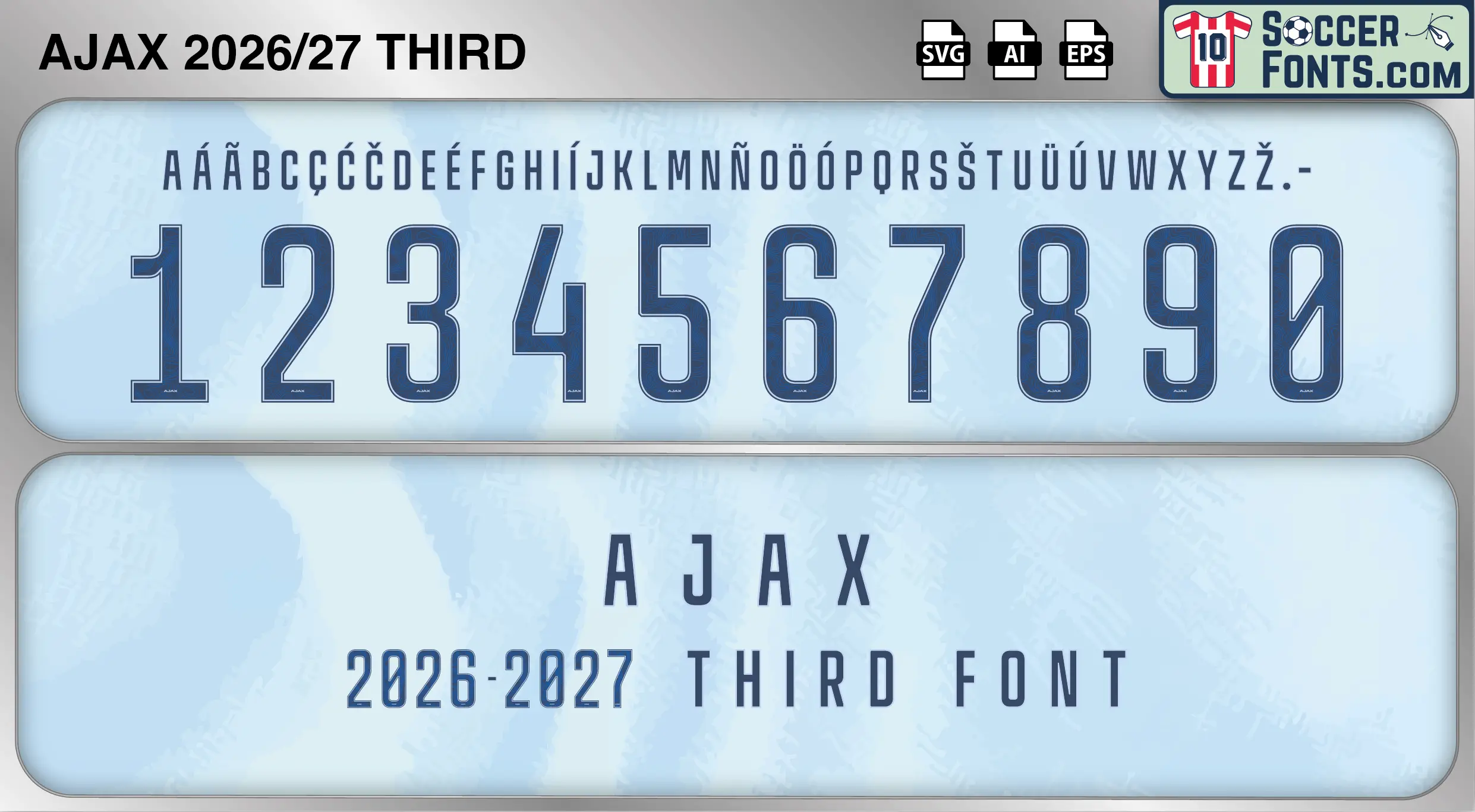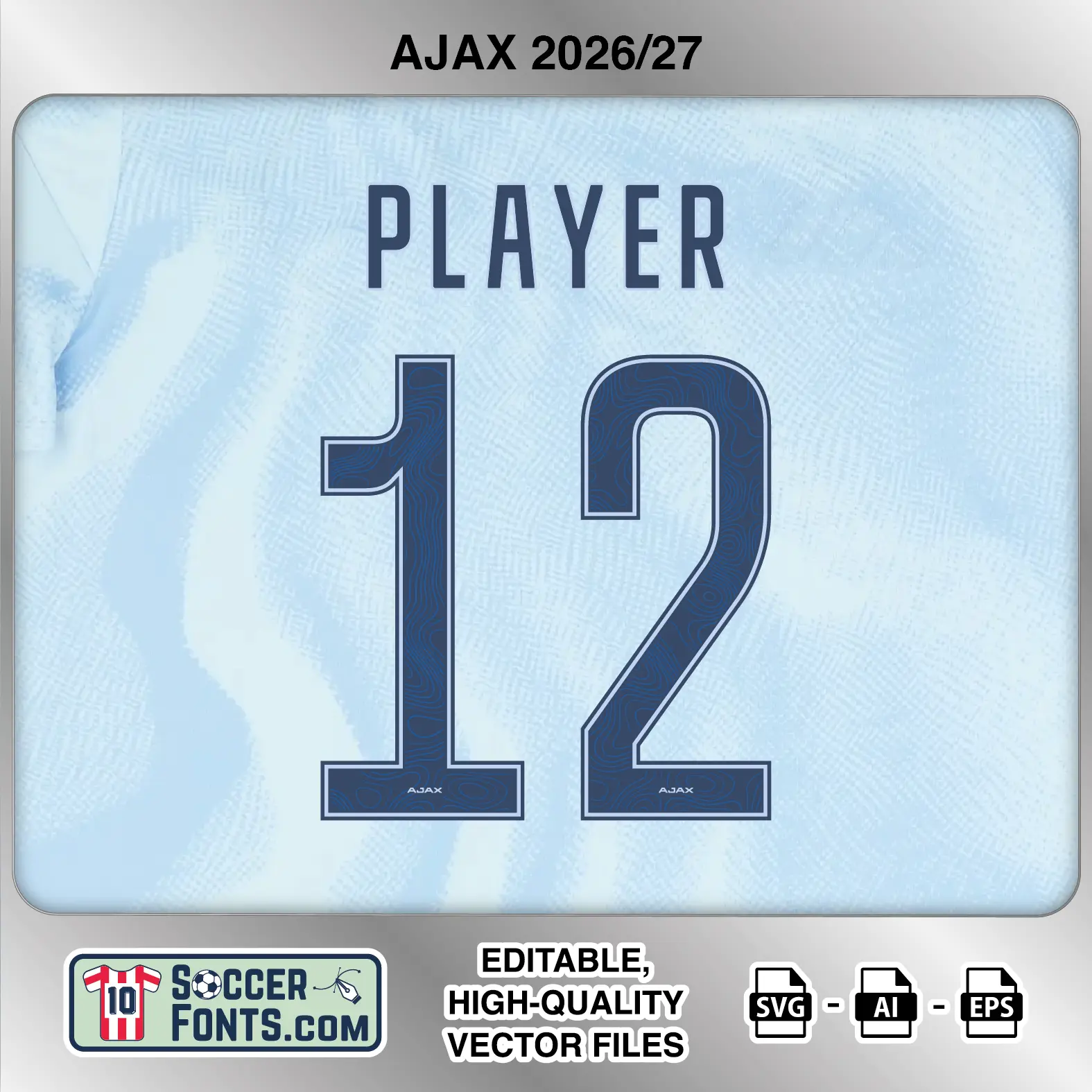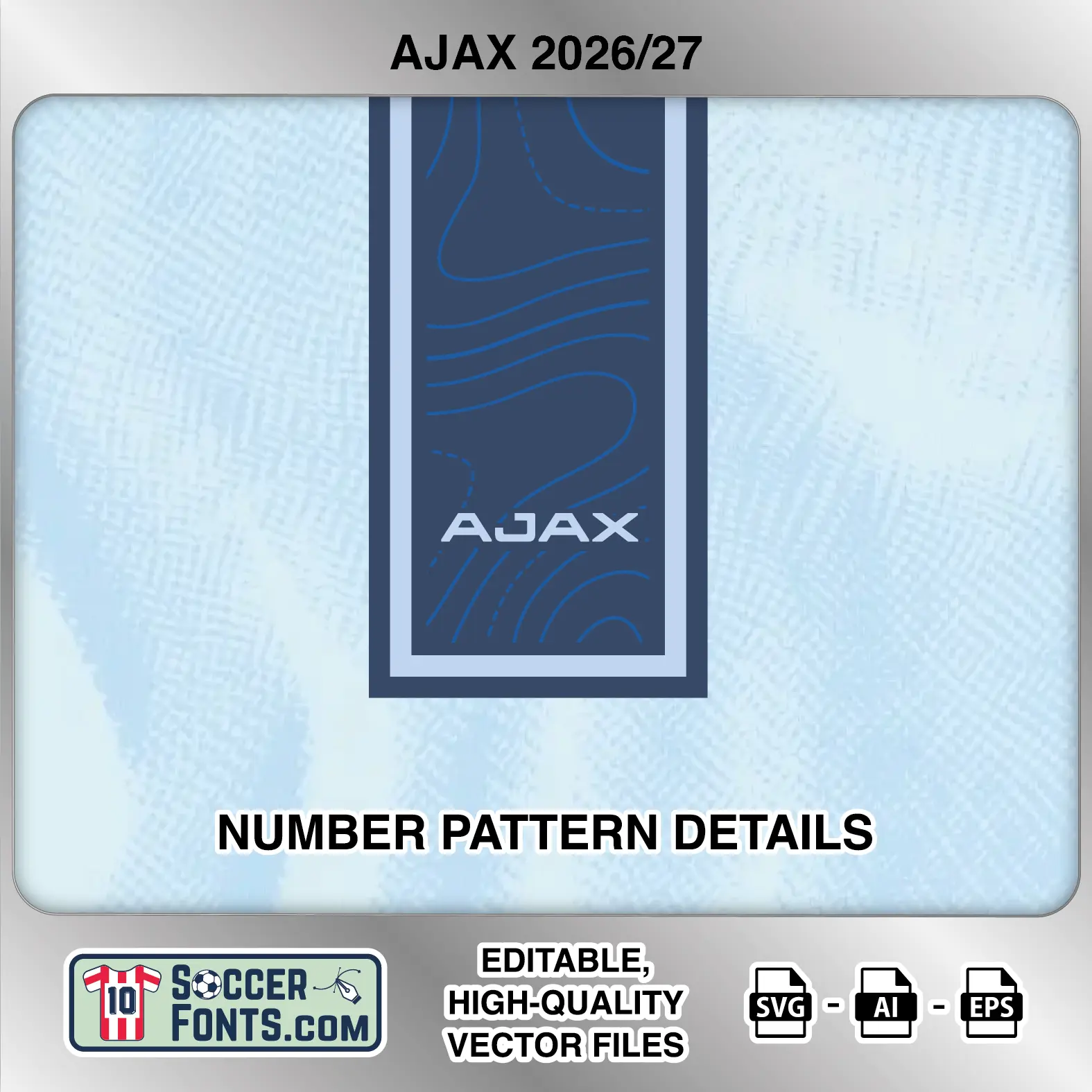
About Ajax 2026-27 Font Third
Download Ajax 2026-27 font third, an editable soccer jersey lettering design in vector format inspired by the Ajax third kit style used during the 2026-27 football season. This football font artwork is prepared for football shirt recreations, custom jersey projects, football kit mockups and sports graphic design workflows.
Visual Identity of the Font Design :
The Ajax 2026-27 third lettering uses a tall, highly condensed construction with narrow uppercase characters and elongated numbers. The player-name alphabet is built from slim vertical strokes with restrained curves, giving the lettering a compact appearance suited to longer names. The numbers follow the same proportions, combining squared terminals with rounded corners and long vertical sections. Figures such as 0, 3, 6, 8 and 9 use narrow internal spaces, while 2 features a rounded upper section flowing into a long diagonal and flat base. The 4 has an open angular structure, and the 7 uses a straight upper bar followed by a narrow diagonal stroke. The numerals are presented in dark navy with a fine lighter outline. A subtle tonal pattern is visible inside the number fills, adding surface detail without changing their overall silhouette. A small “AJAX” wordmark appears along the bottom of each numeral.
Context of 2026-27 Season for Ajax :
Ajax entered the 2026-27 campaign with Míchel Sánchez beginning his first season as head coach and the Amsterdam club continuing a period of sporting renewal. The Ajax 2026-27 Font Third belongs to a campaign in which domestic expectations remained centered on challenging near the top of the Eredivisie while European matches added another dimension to the schedule.
The squad combined established players such as Davy Klaassen and Steven Berghuis with younger talents including Mika Godts and Jorthy Mokio. This mixture continued a long Ajax tradition of giving developing players significant responsibility while maintaining the competitive standards associated with the club.
For collectors and football design projects, the Ajax 2026-27 Font Third identifies the third-kit typography from this particular season. With Eredivisie fixtures, European competition and major domestic rivalries all forming part of the campaign, the Ajax 2026-27 Font Third provides a distinctive reference to another chapter in the club’s modern kit history.